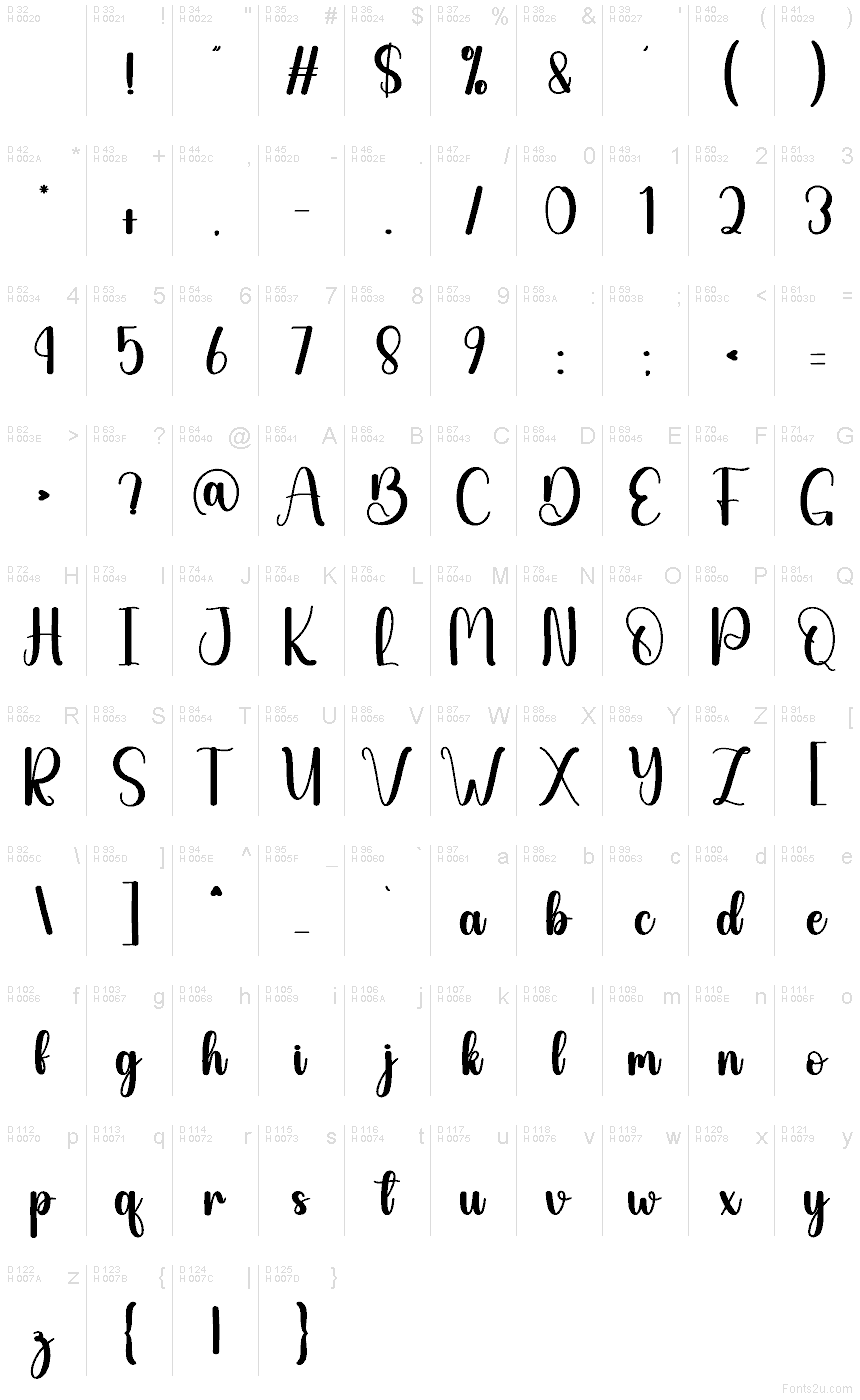
Santa Bookmark
Santa Bookmark font is a subtly decorative free handwritten font designed by Andi Moz. This expressive and flowing typeface has an elegant touch added to its writing, which is reflected through some of its unique characters. Modern aesthetics come into play making every word written with Santa Bookmark look outstandingly beautiful.
If you have cohesive design ideas in mind and want to strengthen them, you can start by using this font. Use it for headers, logos, brands, typed paragraphs on websites as well as blogs, storefronts signs, posters or flyers headlines and body texts, apparel designs such as t-shirts or other merchandise items.